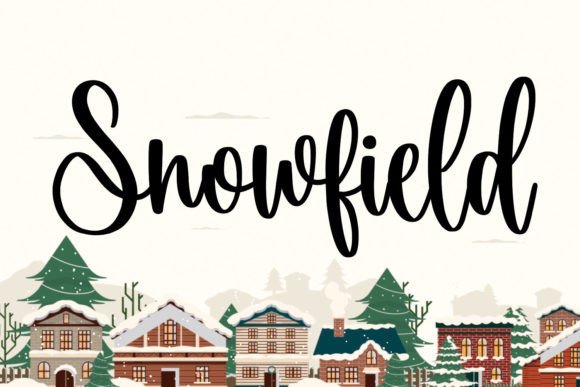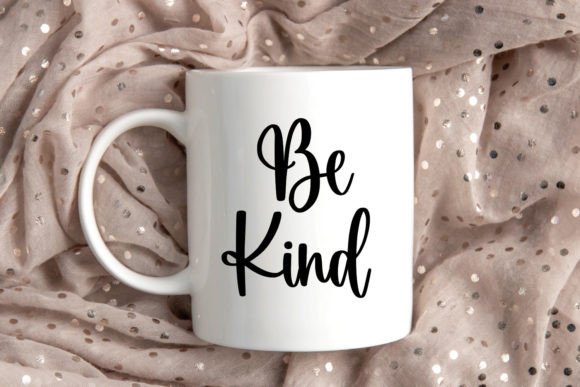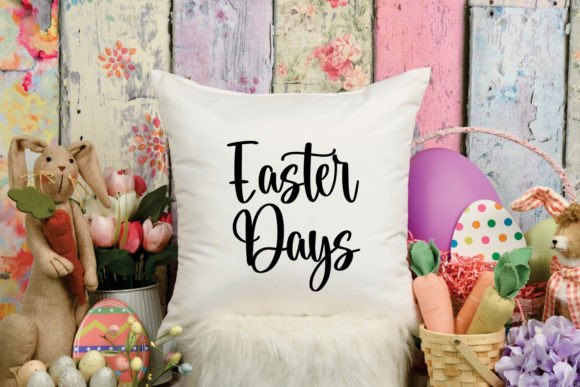
Snowfield Font
Introducing “Snowfield” – a captivating script handwritten font that will transport your designs to a serene winter landscape. Let this font add a touch of elegance and charm to your craft projects, Christmas-themed designs, New Year’s creations, and December festivities.